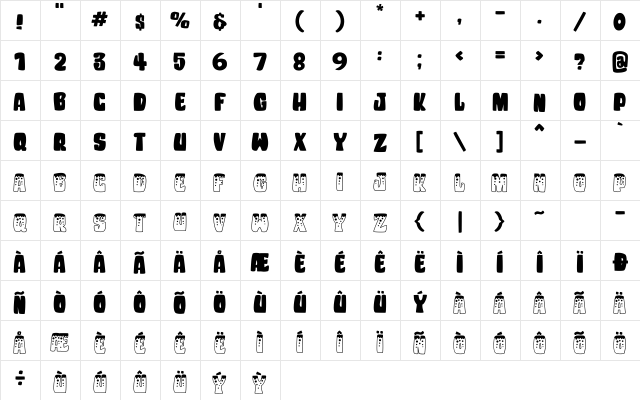
Unicorn Kids Regular
| Designer | Rusdin Hendarsono |
Design Context for Unicorn Kids Typeface
Unicorn Kids has an approachable, lighthearted character — its loose, expressive forms are well-suited to children's content, casual branding, and fun-first design.
Font Pairing: Pairs well with a rounded or humanist sans for body copy, maintaining the friendly tone without relying on Unicorn Kids to carry extended reading.
Pro Tip: Use Unicorn Kids at larger display sizes where its expressive character can land. Pair with a clean, simple sans for body copy to maintain readability.